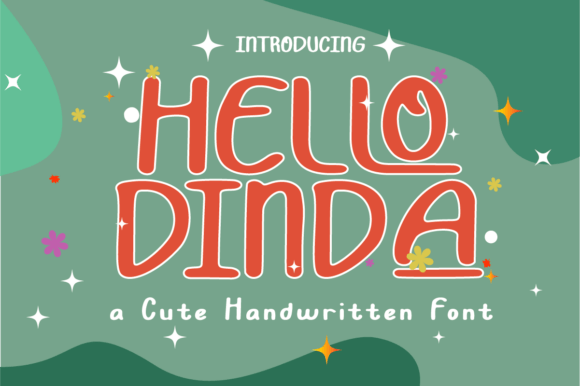
Hello Dinda Font: A Whimsical Gateway to Wonder in Children’s Literature
In the vibrant world of children’s literature, the presentation of content is as crucial as the content itself. The font used in storybooks, educational materials, and other children’s resources plays a significant role in capturing the imagination of young readers. It is within this context that the “Hello Dinda” font emerges as a beacon of creativity and engagement. This article aims to explore the enchanting features of the “Hello Dinda” font, its design philosophy, and how it can be a valuable asset in crafting compelling narratives for children.
Welcome to the Charming Realm of “Hello Dinda”
“Hello Dinda” is not just a font; it’s an experience designed to transport young readers into a world of wonder and learning. Its amiable, rounded lettering and playful sweeps are meticulously crafted to spin a web of enchantment. This font is specifically woven for the spellbinding universe of children’s literature, making it an ideal choice for authors, publishers, and educators aiming to engage the curiosity of young minds.
Artistic Appeal and Legibility: A Delicate Balance
The “Hello Dinda” font is the epitome of thoughtful design. Every character in this exquisite set is carefully crafted, striking the perfect balance between artistic appeal and legibility. The design philosophy behind “Hello Dinda” revolves around creating a font that is not only visually appealing but also easy to read. This balance ensures that the font enhances the reading experience for children, making it more enjoyable and engaging.
The artistic appeal of “Hello Dinda” lies in its unique blend of friendliness and playfulness. The rounded edges and smooth curves of the letters give the font a soft, approachable feel, reminiscent of hand-drawn illustrations. This aesthetic not only captures the imagination of young readers but also makes the content more inviting.
On the other hand, the legibility of “Hello Dinda” is paramount. Despite its artistic embellishments, the font remains clear and easy to decipher, even for early readers. This clarity ensures that the message is conveyed effectively, allowing children to focus on the story rather than struggling to understand the text.
Accented with Just the Right Hint of Whimsy
One of the standout features of the “Hello Dinda” font is its subtle hint of whimsy. This element of playfulness is carefully integrated into the design, making the font perfect for igniting the flame of knowledge and wonder in a child’s heart. The whimsical nature of “Hello Dinda” does not compromise its professionalism; instead, it enhances the learning experience by making it more enjoyable and interactive.
In educational materials, the use of “Hello Dinda” can transform mundane content into an engaging narrative. For instance, textbooks, worksheets, and educational posters can be made more appealing with this font, encouraging children to explore and learn with enthusiasm.
Enriching Storybooks and Learning Materials
The “Hello Dinda” font is incredibly versatile, making it suitable for a wide range of applications in children’s literature. Its primary use is in storybooks, where it can bring narratives to life with its vibrant and playful aesthetic. Authors and publishers can use “Hello Dinda” to create visually appealing storybooks that captivate young readers from the first page.
Moreover, “Hello Dinda” is an excellent choice for educational materials. Its legibility and artistic appeal make it perfect for textbooks, workbooks, and other learning resources. By incorporating this font into educational content, educators can create a more engaging and interactive learning environment that fosters a love for reading and learning.
A Font for Both Digital and Print Media
In today’s digital age, content is consumed across various platforms. The “Hello Dinda” font is designed to be versatile, making it suitable for both digital and print media. Whether it’s an e-book, a website, or a printed storybook, “Hello Dinda” adapts seamlessly, ensuring a consistent and engaging reading experience across different mediums.
For digital media, “Hello Dinda” can enhance the visual appeal of children’s websites, apps, and e-books. Its clear and readable design ensures that the content is easily accessible on various devices, from smartphones to tablets and desktops.
In print media, “Hello Dinda” can elevate the aesthetic of storybooks, educational materials, and promotional content. Its high-quality design ensures that the font looks impressive in various print formats, from large banners to small stickers.
Embracing the Magic of “Hello Dinda”
The “Hello Dinda” font is more than just a typographical choice; it’s a gateway to a world of imagination and learning. Its unique blend of artistic appeal, legibility, and whimsy makes it an invaluable asset in children’s literature. By embracing “Hello Dinda,” authors, publishers, and educators can create engaging narratives that captivate young readers and inspire a love for reading.
In conclusion, “Hello Dinda” stands out as a vibrant and versatile font, specifically designed to enrich children’s literature. Its amiable, rounded lettering and playful sweeps create a web of enchantment, ideal for engaging young minds. As we continue to explore innovative ways to make learning more enjoyable, fonts like “Hello Dinda” play a crucial role in shaping the future of children’s literature.